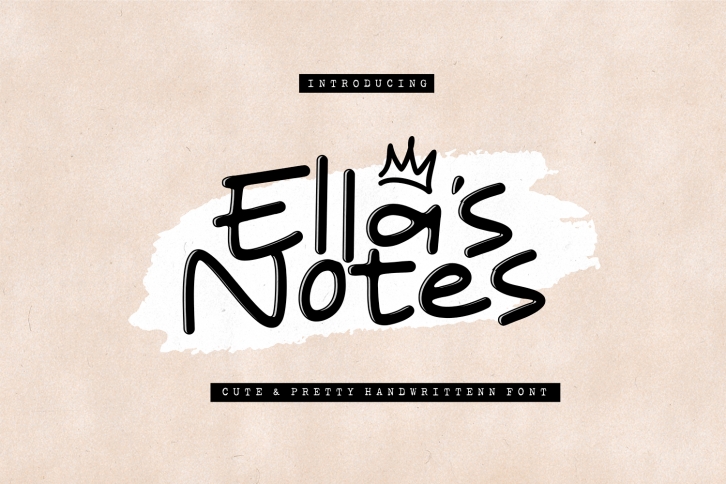
Ella's Notes is a playful and friendly font, perfect for adding a touch of fun to your designs. With its whimsical letterforms and bubbly personality, this font is perfect for creating inviting social media graphics, children’s books, or anything that needs a lighthearted touch. Bring your designs to life with this charming and approachable font.